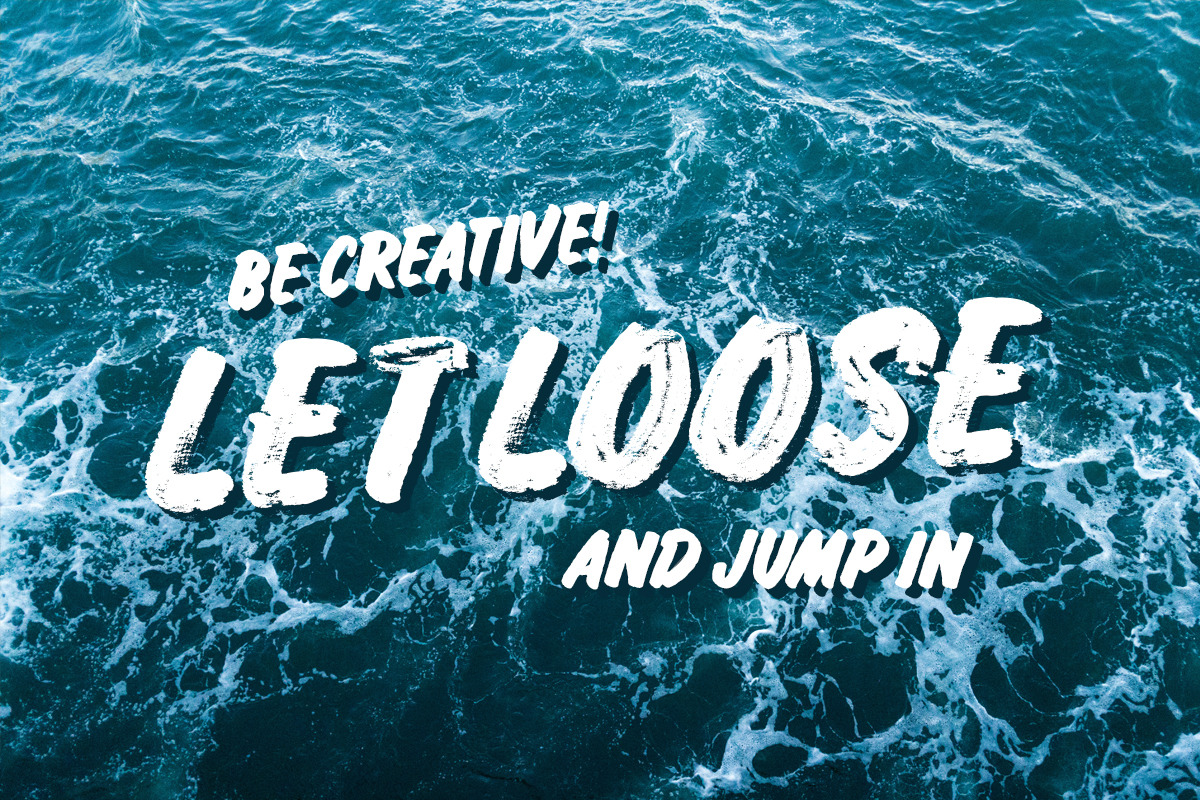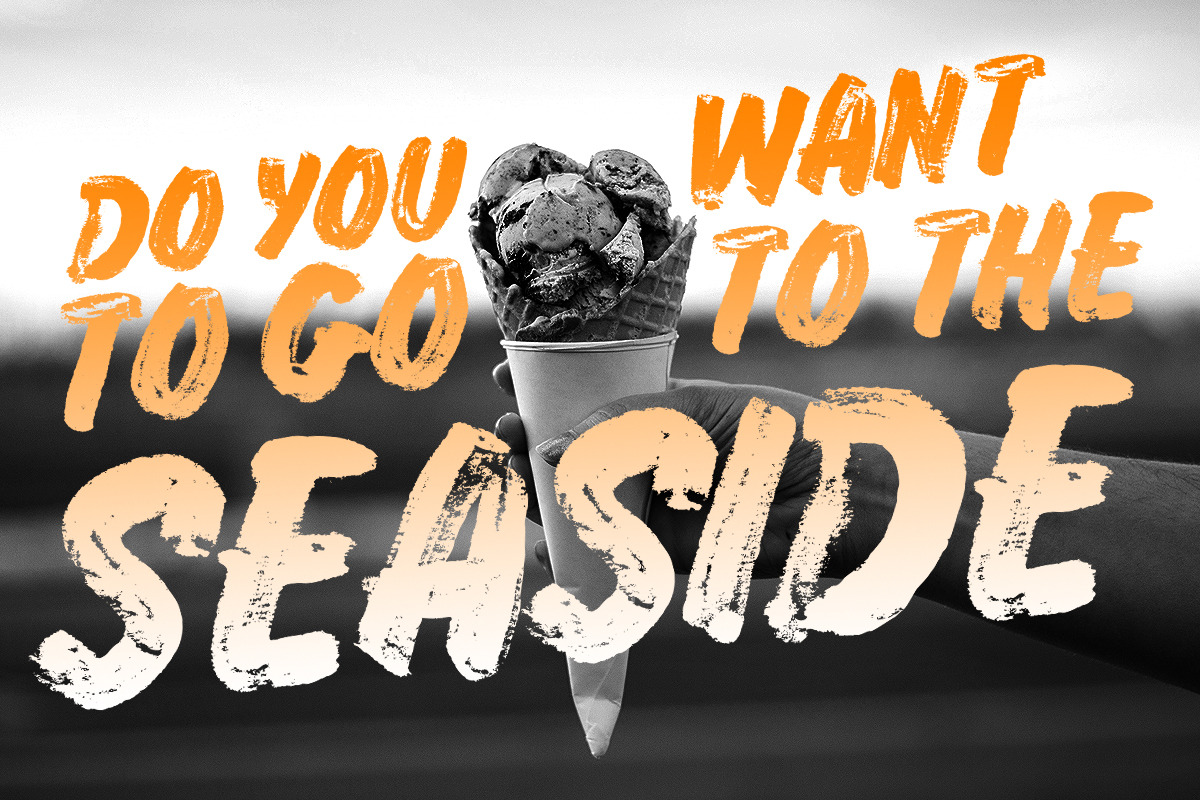
Grocery Brush & Hand (PLUS Extras)
A Realistic Brush Script Inspired by Classic Signwriting
I'm very pleased to introduce you to the Grocery Font Family, it includes a rough and ready brush script (Grocery Brush) and a cleaner alternative (Grocery Hand) both inspired by classic food-market signwriting.
Grocery Brush - Every effort was made to ensure the quality of texture in each letter was as high as possible. Fonts can only be so detailed, so after testing the limits of my software (and crashing it several times) I was eventually able to come up with what we have before you.
Grocery Hand - The template for its brushed alternative, Grocery Hand was the starting point for this creative family and is available in a regular and italic style. Also, this font includes lowercase glyphs (Grocery Brush does not).